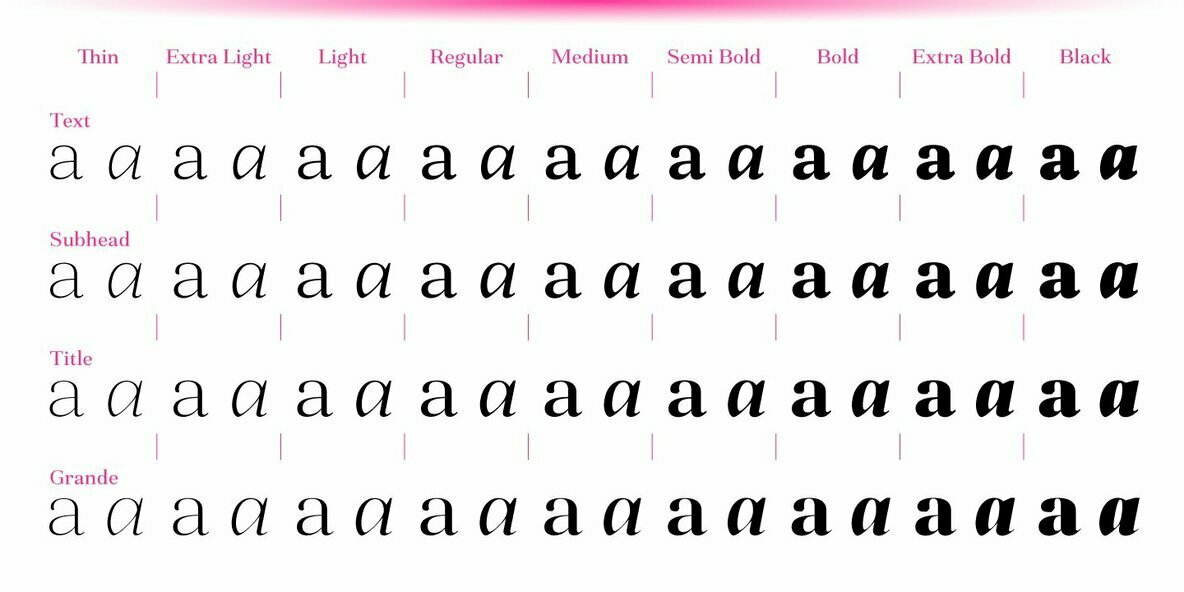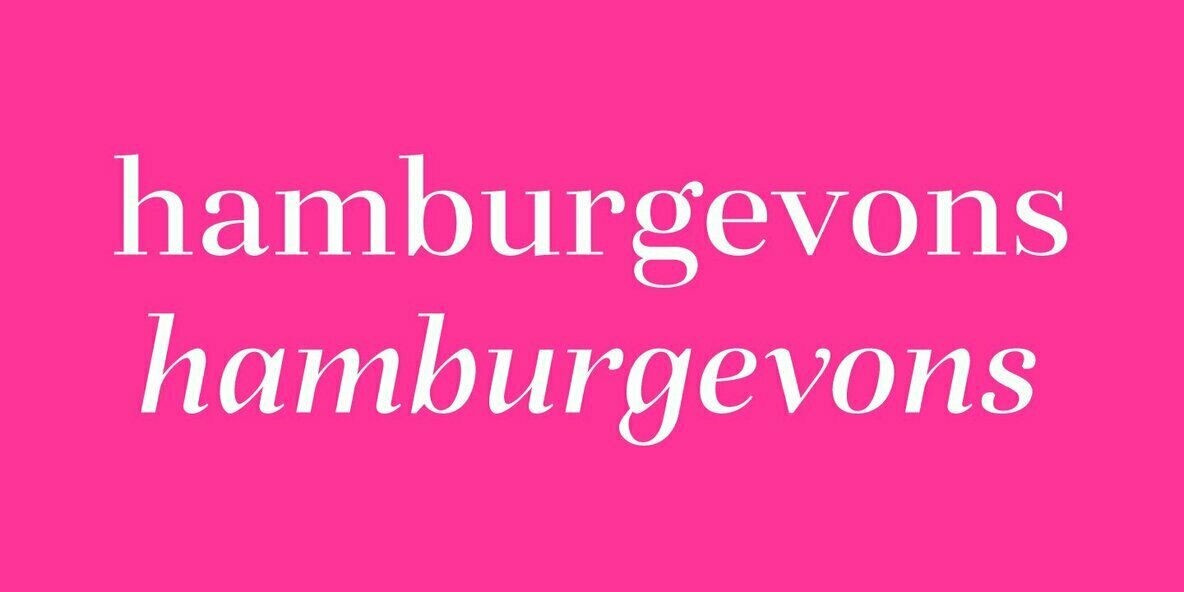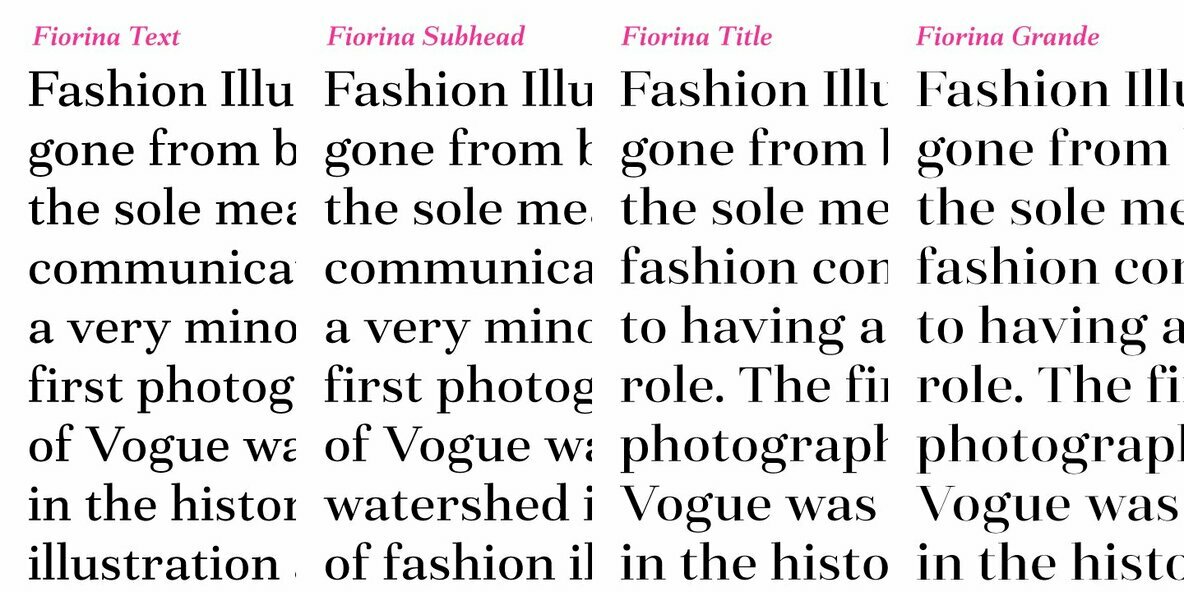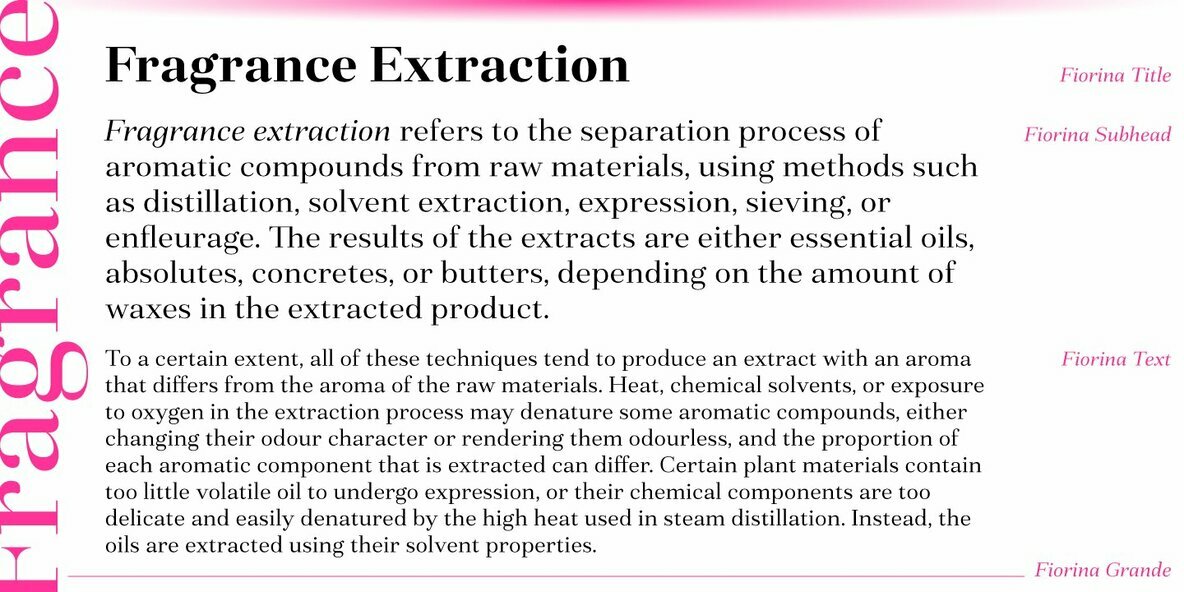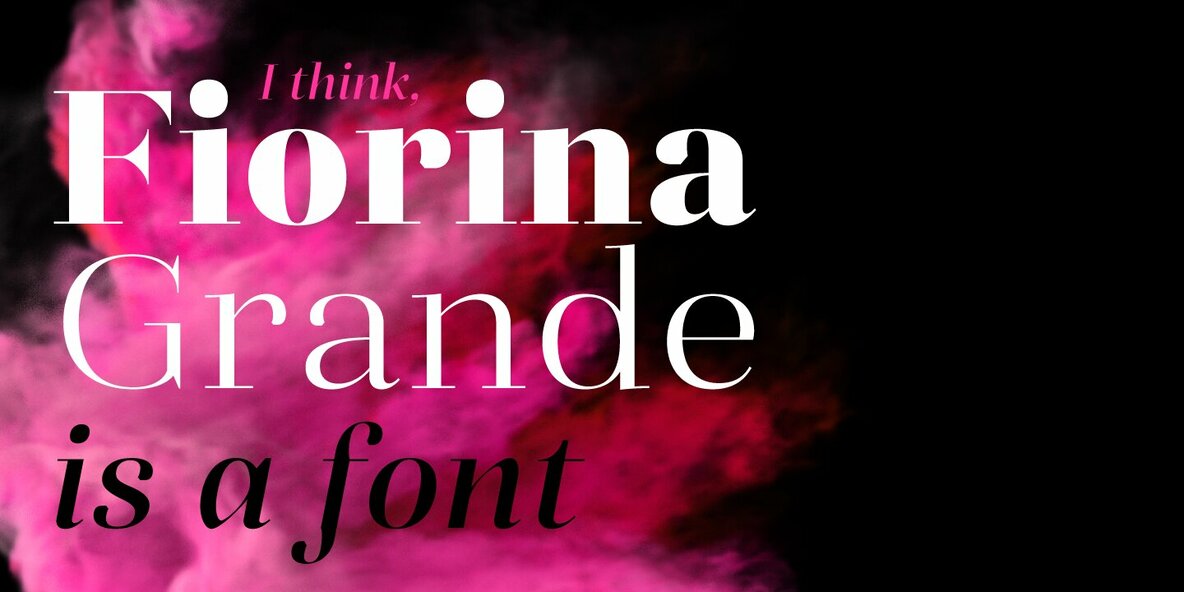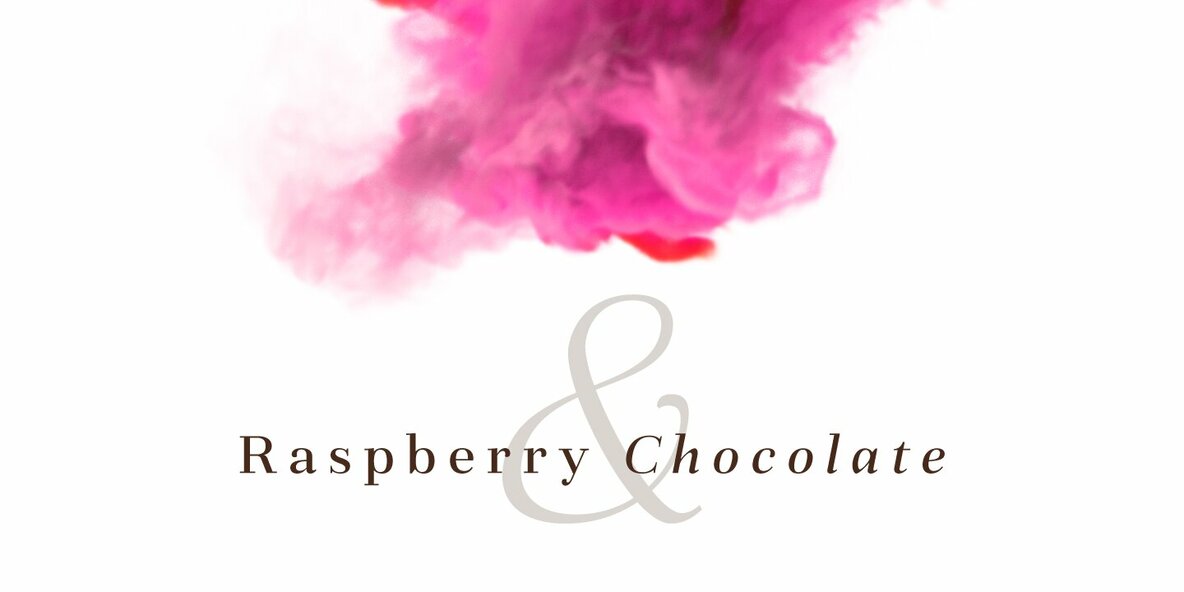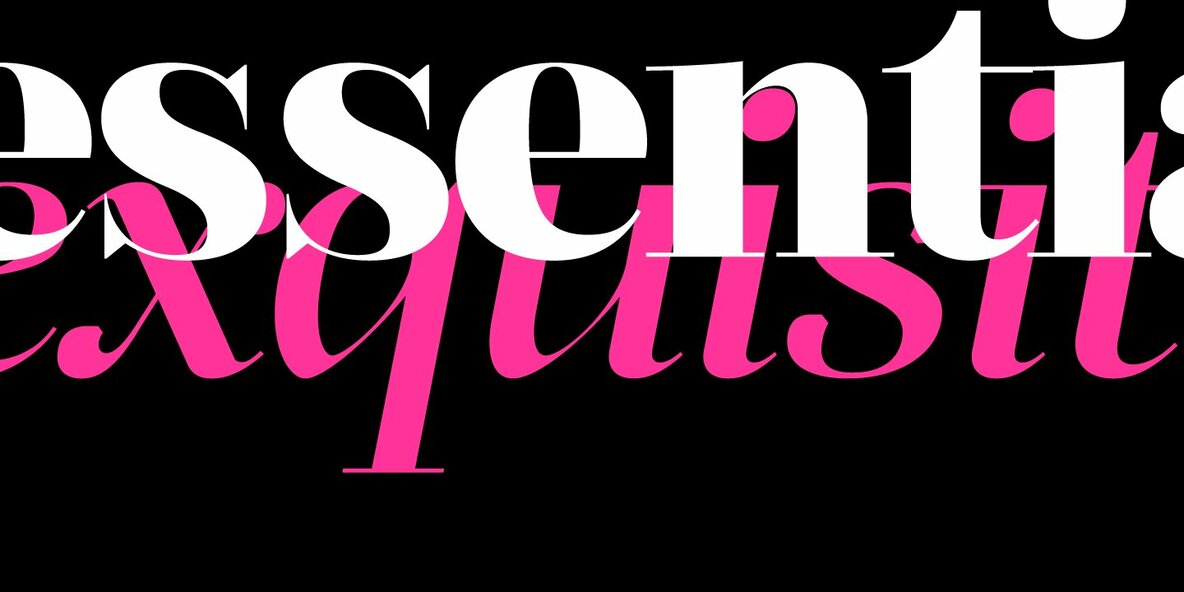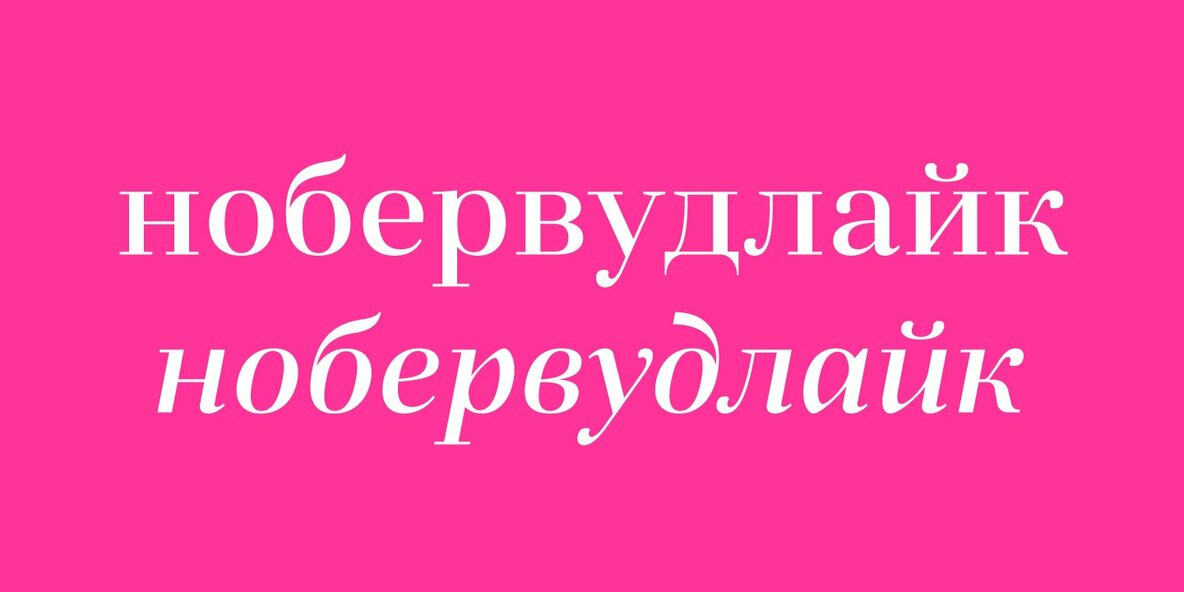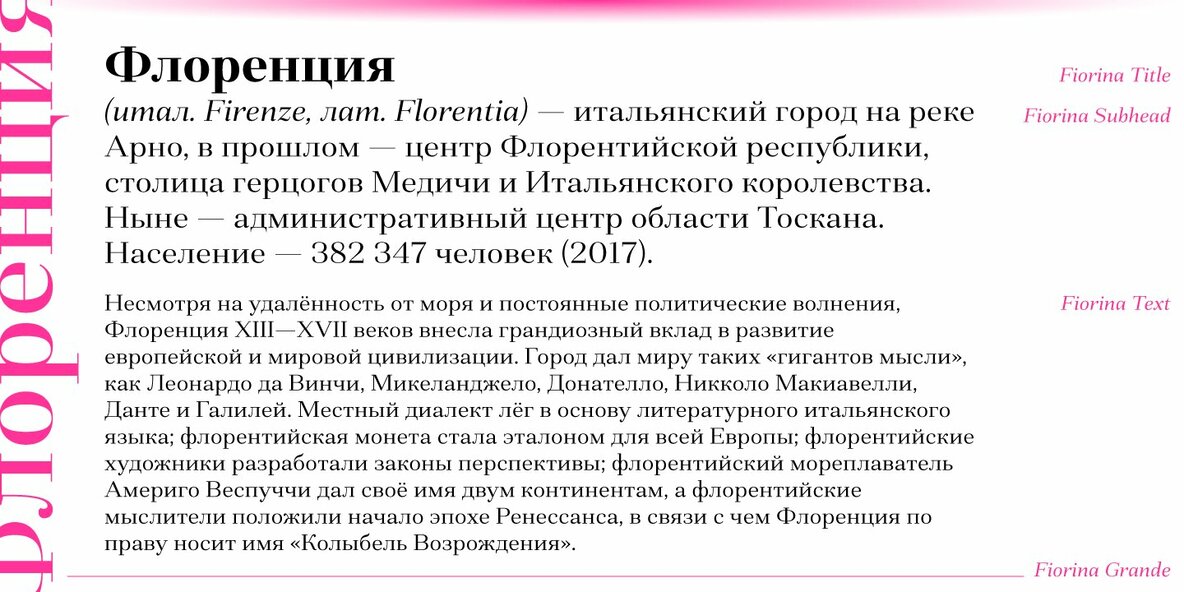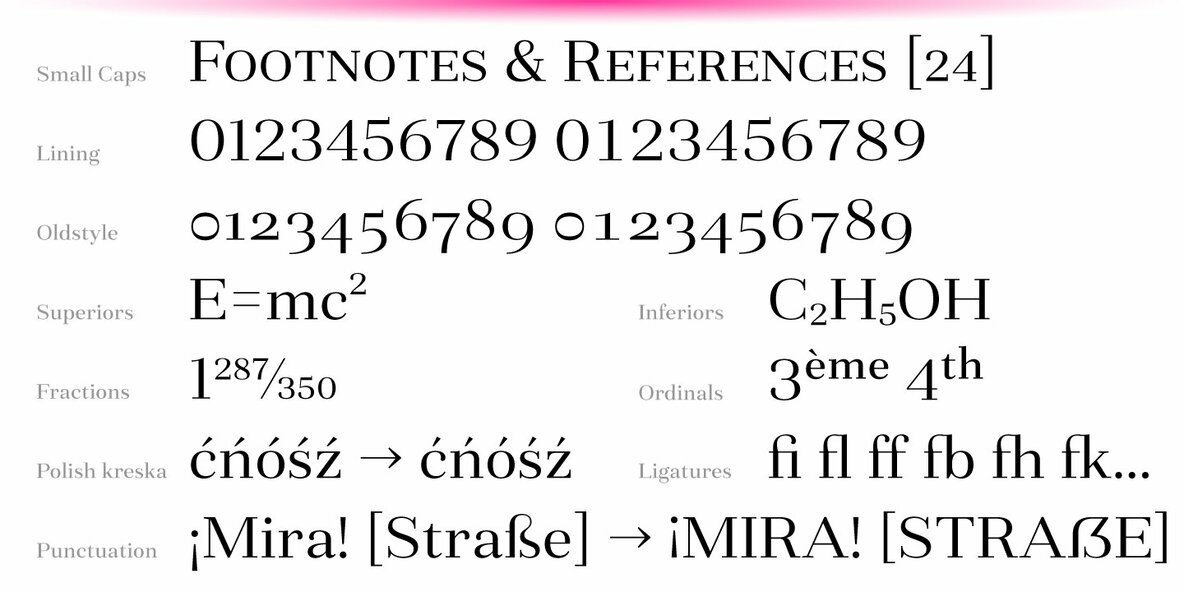
Fiorina Grande Font
Fiorina is a modern Didone-style serif typeface of 72 fonts. It comes in 4 optical sizes, ranging from Text with moderate contrast to super-contrasted Grande.
Each cut comes in 9 weights with corresponding sophisticated italics. The overall variety of styles makes Fiorina the ultimate magazine typeface.
The glyph set supports all European Latin-based languages, as well as all major languages that use Cyrillic script. The type family also suppors numerous OpenType features, including 6 sets of digits, small caps, fractions, superscript and subscripts, ordinals etc.